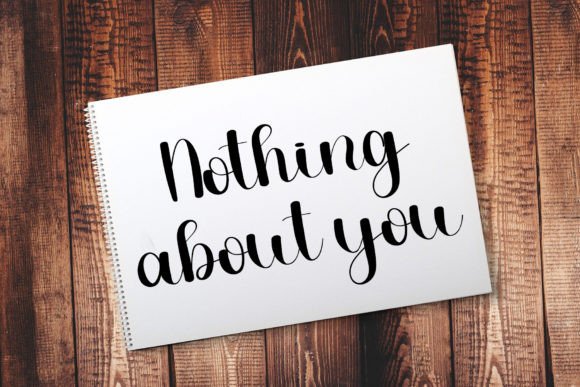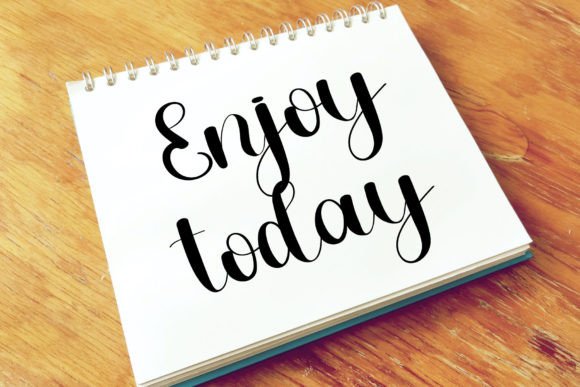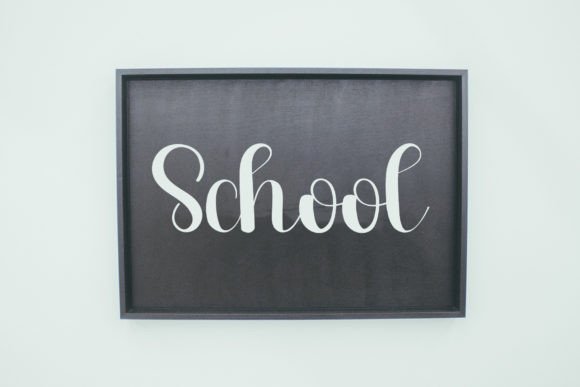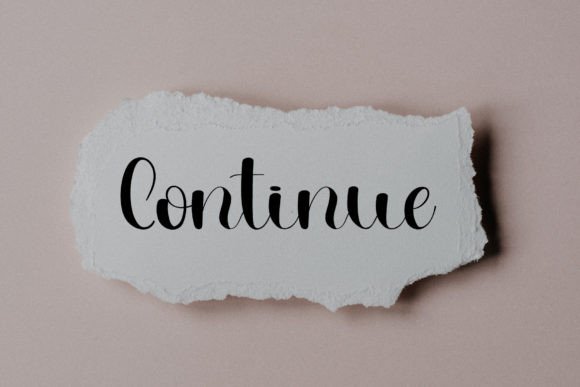
The Designer’s Delight: A Deep Dive into Faith Font
I’ll never forget the time I was working on a project for a client who wanted a elegant and sophisticated look. I had spent hours browsing through font libraries, but nothing seemed quite right. That was until I stumbled upon Faith Font. Its beautiful, handwritten curves and elegant touch instantly caught my eye, and I knew I had found the perfect fit. In this article, I’ll share my experience with Faith Font, its features, and how to make the most of it in your designs.
A Personal Review of Faith Font
- ✨ Elegant and sophisticated look that’s perfect for a variety of projects
- 💫 Incredibly distinct and timeless style that sets it apart from other fonts
- 🎨 Versatile and can be used for both digital and print projects
While Faith Font is an excellent choice, there are a few things to keep in mind:
- 🤔 Some users may find the font a bit too ornate for certain projects
- ⚠️ Limited availability of certain OpenType features, such as ligatures and stylistic alternates
The Story Behind Faith Font
Faith Font was designed by a team of talented typographers who wanted to create a font that would inspire creativity and elegance. The font’s elegant touch and sophisticated look make it perfect for a variety of projects, from wedding invitations to business cards.
| Font Name | Faith Font |
| Author | Kongsi.Co |
Q: Does Faith Font come with OpenType features?
A: Yes, Faith Font comes with a range of OpenType features, including glyphs and stylistic alternates, which can be accessed in compatible design software.
Q: Is Faith Font easy to read?
A: Yes, Faith Font is highly legible, even at small font sizes, making it perfect for body text and articles.